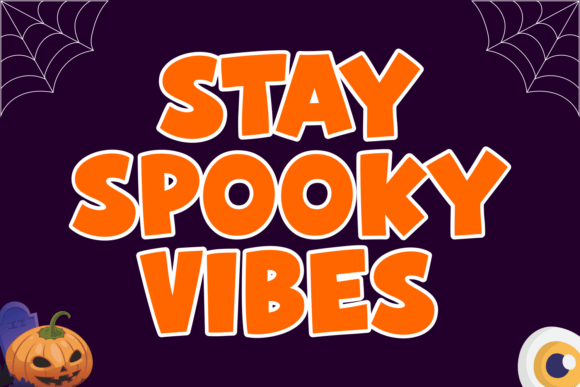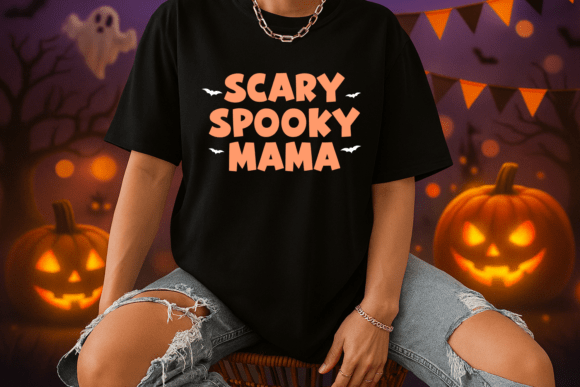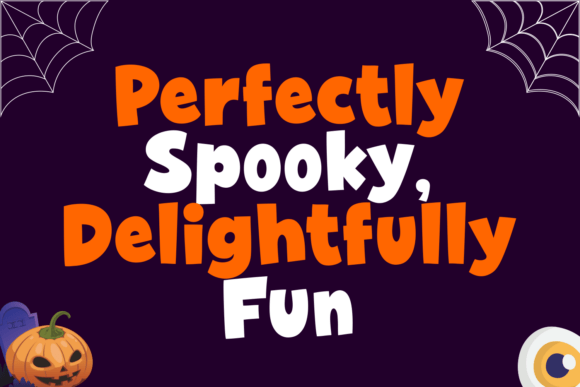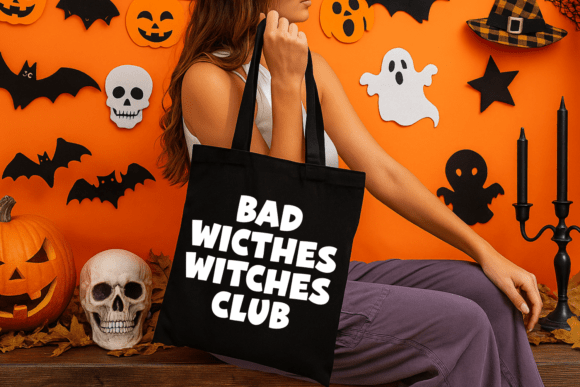
The Perfect Font for a Spooky Celebration
As the sun sets on a crisp autumn evening, and the jack-o-lanterns begin to glow, you start brainstorming ideas for the ultimate Halloween party. The excitement builds, and your creativity takes flight. You envision spooky decorations, trick-or-treat bags, and festive invitations that scream fun and excitement. But, have you thought about the perfect font to bring your spooky-season projects to life?
Enter the Batsy Bounce Font by Dreamink 7ntypes Font, a delightful display font that embodies the cheerful spirit of Halloween. With its bold, chunky letters and bouncy design, this typeface is sure to add a lively, kid-friendly vibe to your designs. Whether you’re a seasoned designer or a creative enthusiast, the Batsy Bounce Font is a valuable addition to your toolkit, perfect for bringing a dash of Halloween charm to your projects.
Batsy Bounce Font by Dreamink 7ntypes Font Key Features
- Font Style: Hand-Drawn, Fun, and Playful
- Unique Characteristics: Unique letterforms, interesting ligatures, and creative punctuation marks
Batsy Bounce Font Review by Dreamink 7ntypes Font
I recently had the chance to work with the Batsy Bounce font, and I must say it’s a unique and fun addition to any project. ✨ The font’s playful and energetic vibe is perfect for creating attention-grabbing headlines or titles. The designer has done a great job of capturing the whimsy and movement of bats in flight.
Here are some things that work well about the Batsy Bounce font:
- ✨ Unique design: The font’s irregular shapes and lines give it a one-of-a-kind feel that’s sure to stand out.
- ⚠️ Limited language support: The font only includes a limited range of characters, which may make it less suitable for projects that require extensive international support.
- ⚠️ Not ideal for body text: While the font is great for headlines, it’s not the best choice for large blocks of text due to its irregular spacing and letterforms.
Overall, I think the Batsy Bounce font is a great choice for projects that need a fun and energetic vibe. With its unique design and high-quality vectors, it’s sure to make a statement. Just be aware of its limitations and use it wisely.
- Use the font in combination with other playful and whimsical elements to create a cohesive design.
- Consider using Batsy Bounce Font for titles, headings